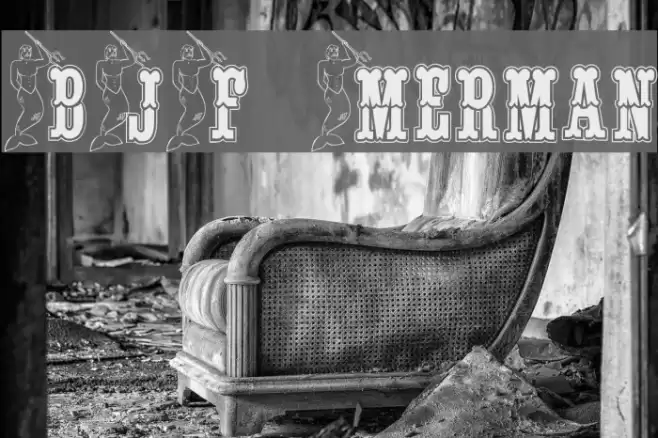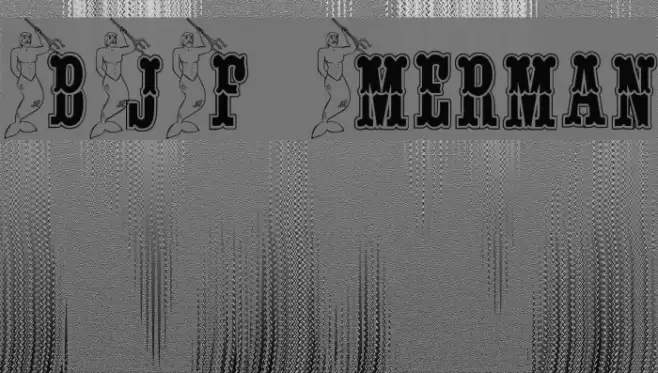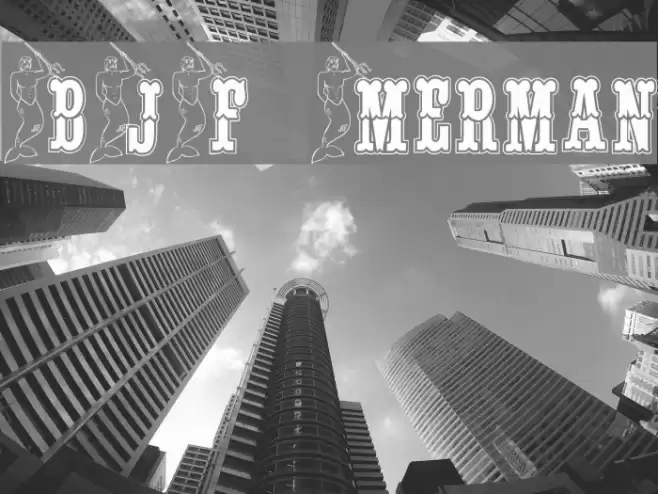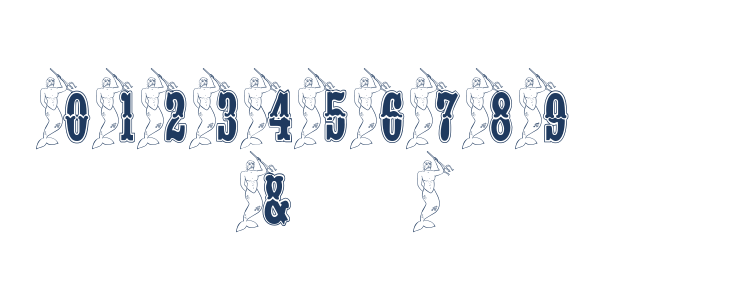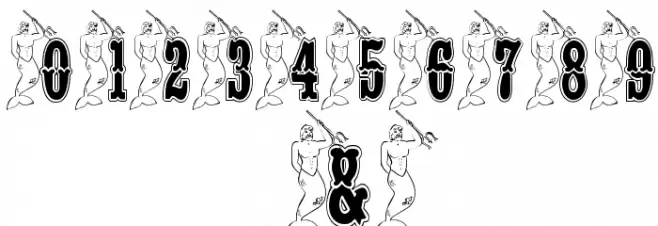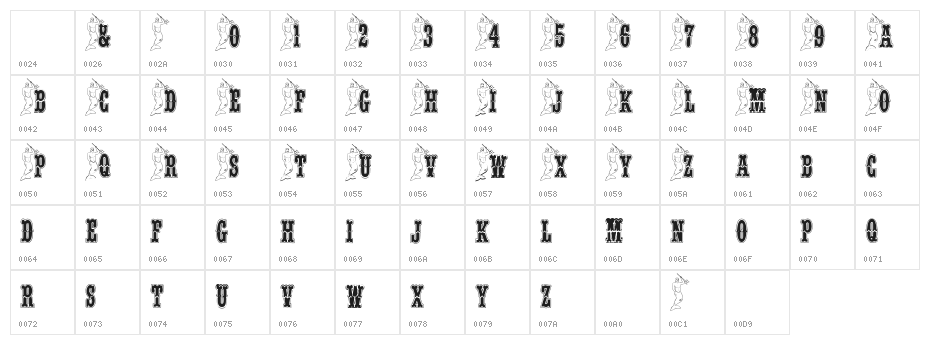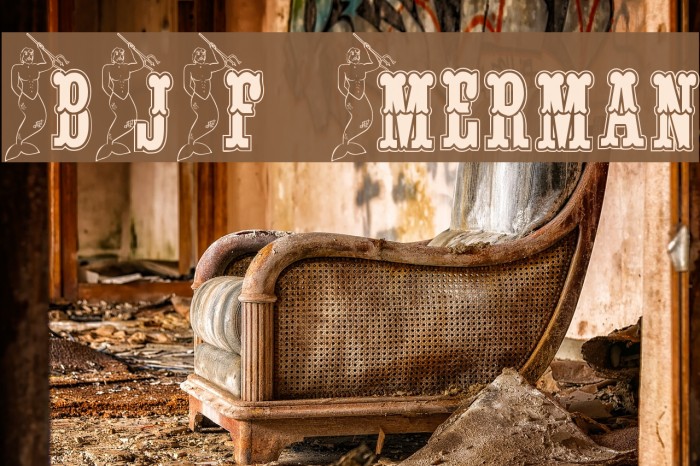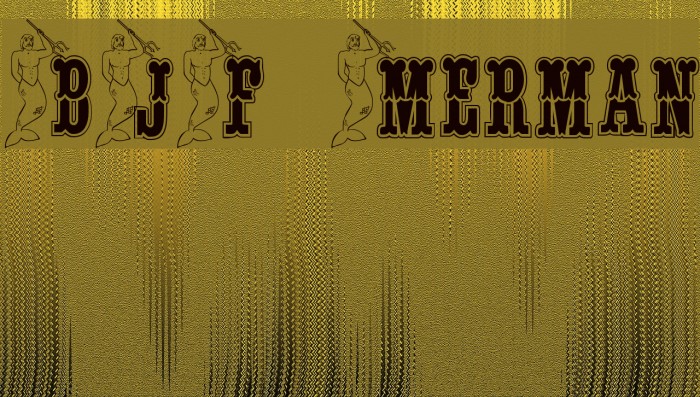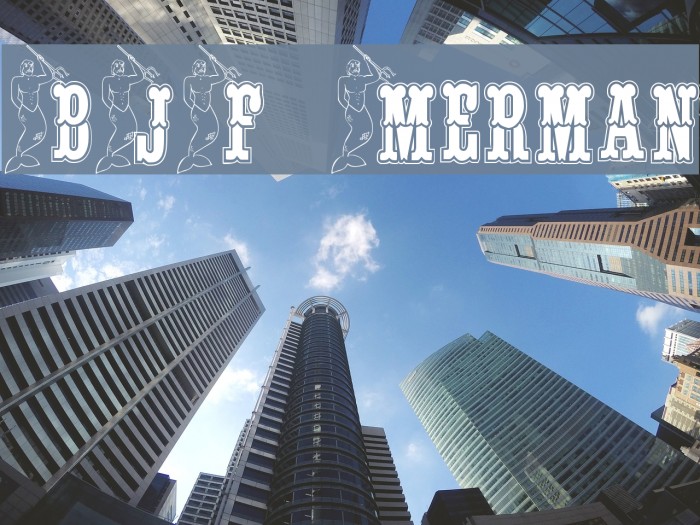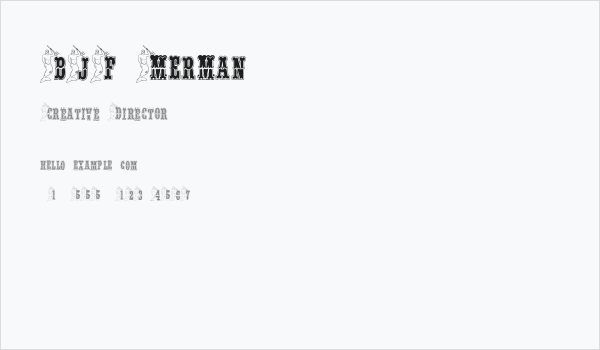
BJF Merman Font
BJF Merman Description
This font features a bold and decorative style with intricate detailing. Each character is adorned with a unique merman design, adding a whimsical and nautical theme. The letters are outlined with a thick black border, enhancing their visibility and creating a striking contrast. The font is highly stylized, making it suitable for creative and artistic projects. Its playful and imaginative design is perfect for capturing attention and conveying a sense of fun and fantasy.
A bold, decorative font with merman-themed characters and thick outlines from Uncategorized fonts.
- Proposed Projects: Ideal for themed event posters, fantasy book covers, children's party invitations, and creative branding.